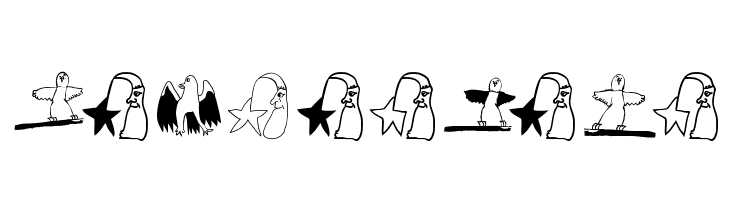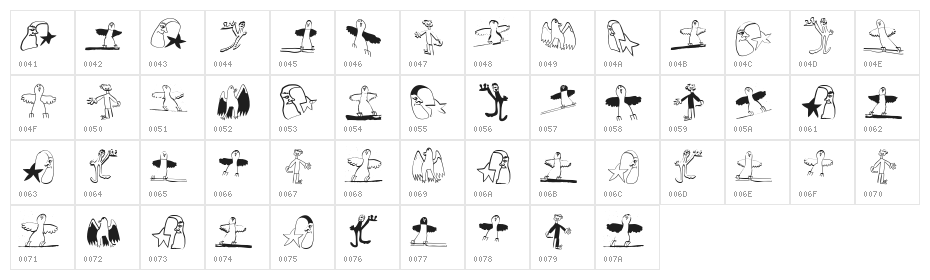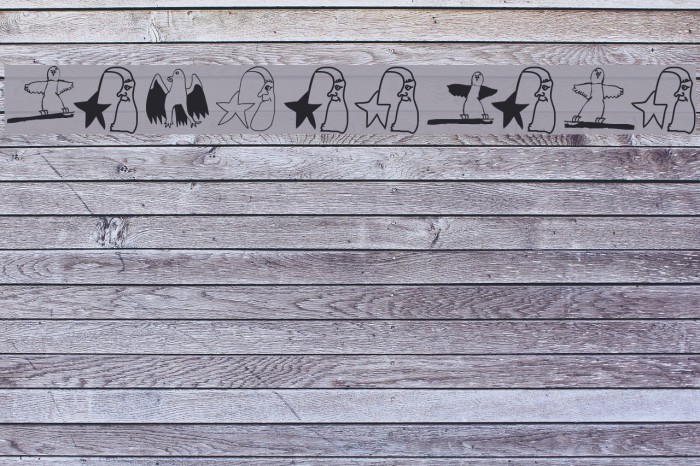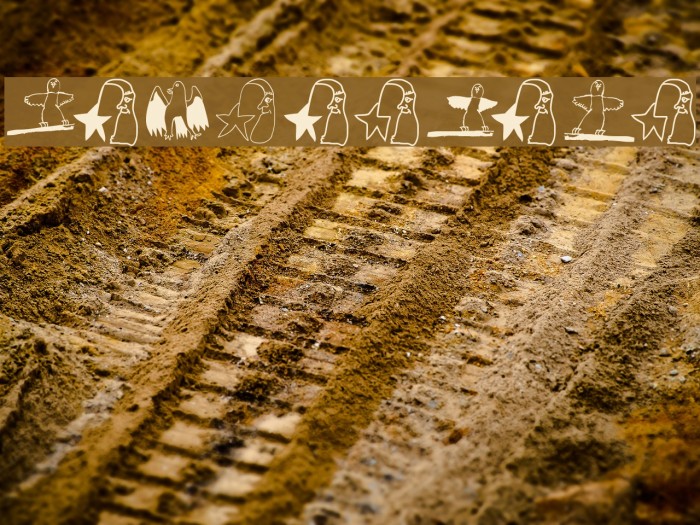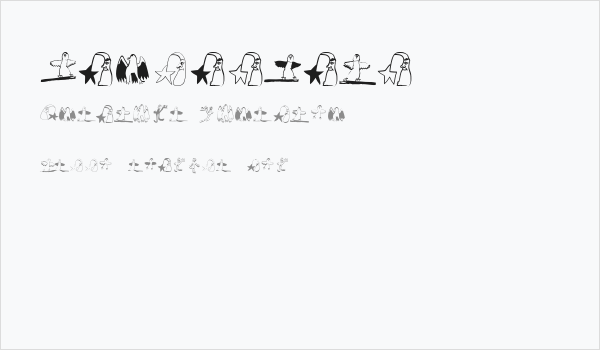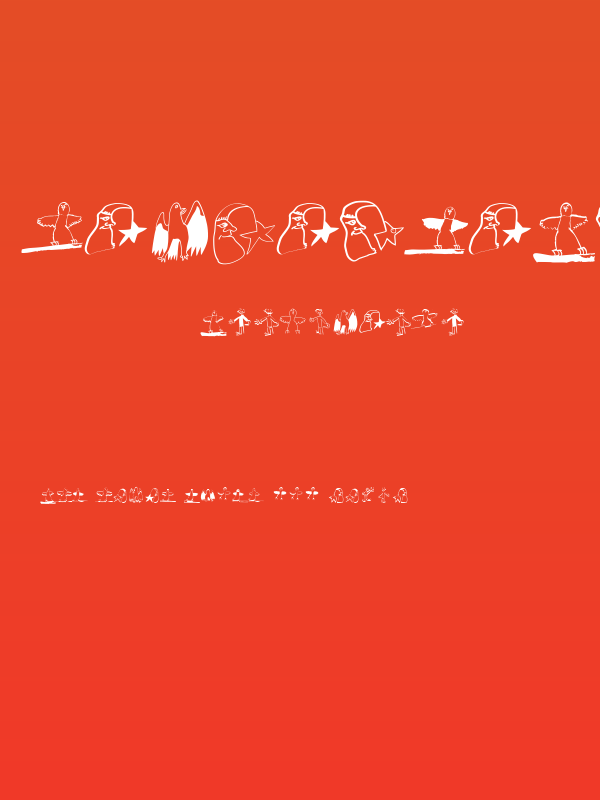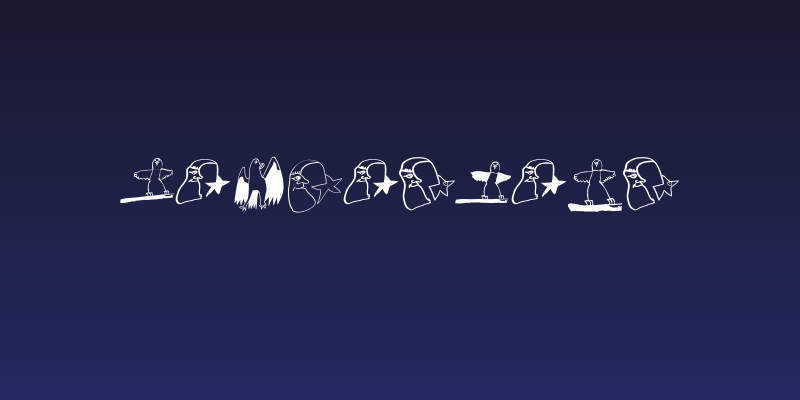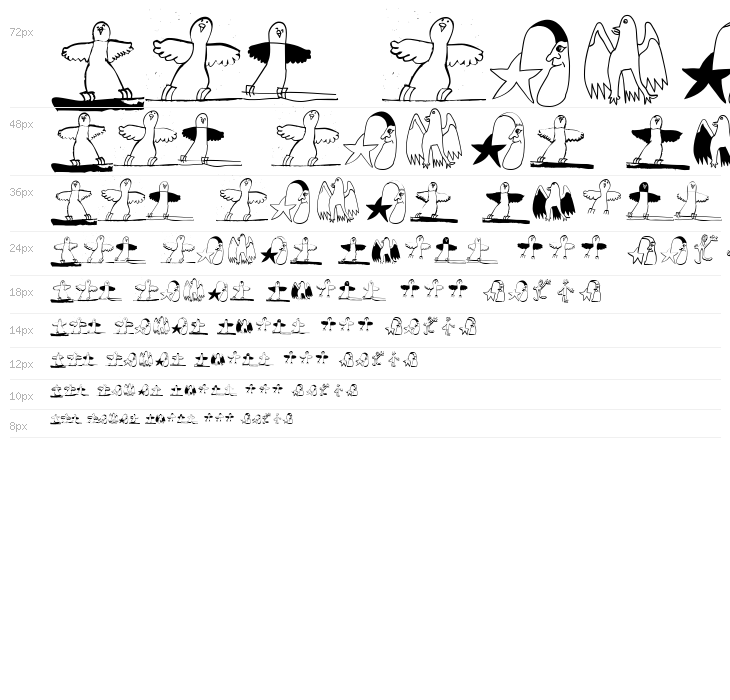
KarlasBats Font
KarlasBats Description
This font is a whimsical and playful collection of hand-drawn characters, each uniquely crafted with a sense of humor and creativity. The characters resemble cartoonish figures with exaggerated features, often incorporating elements like stars and abstract shapes. The style is reminiscent of doodles or sketches, with a casual and informal appearance. The strokes are varied, with some characters featuring bold outlines while others have more delicate lines. This font is not meant for traditional text but rather for decorative purposes, adding a fun and quirky touch to any project.
| Overall Style | Whimsical, Playful, Artistic |
| Use Case | Decorative elements, Illustrations, Creative projects |
| Proposed Projects | Ideal for children's book illustrations, playful greeting cards, creative posters, and any project needing a touch of humor and whimsy. |